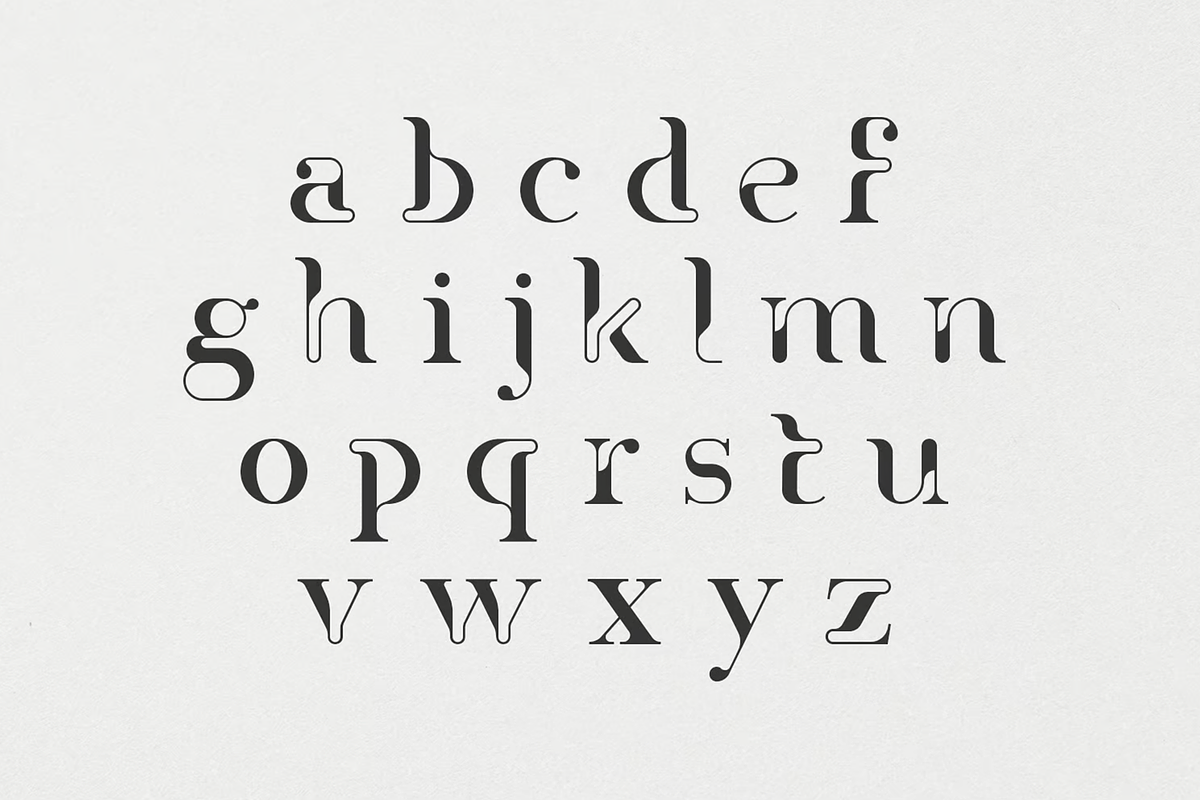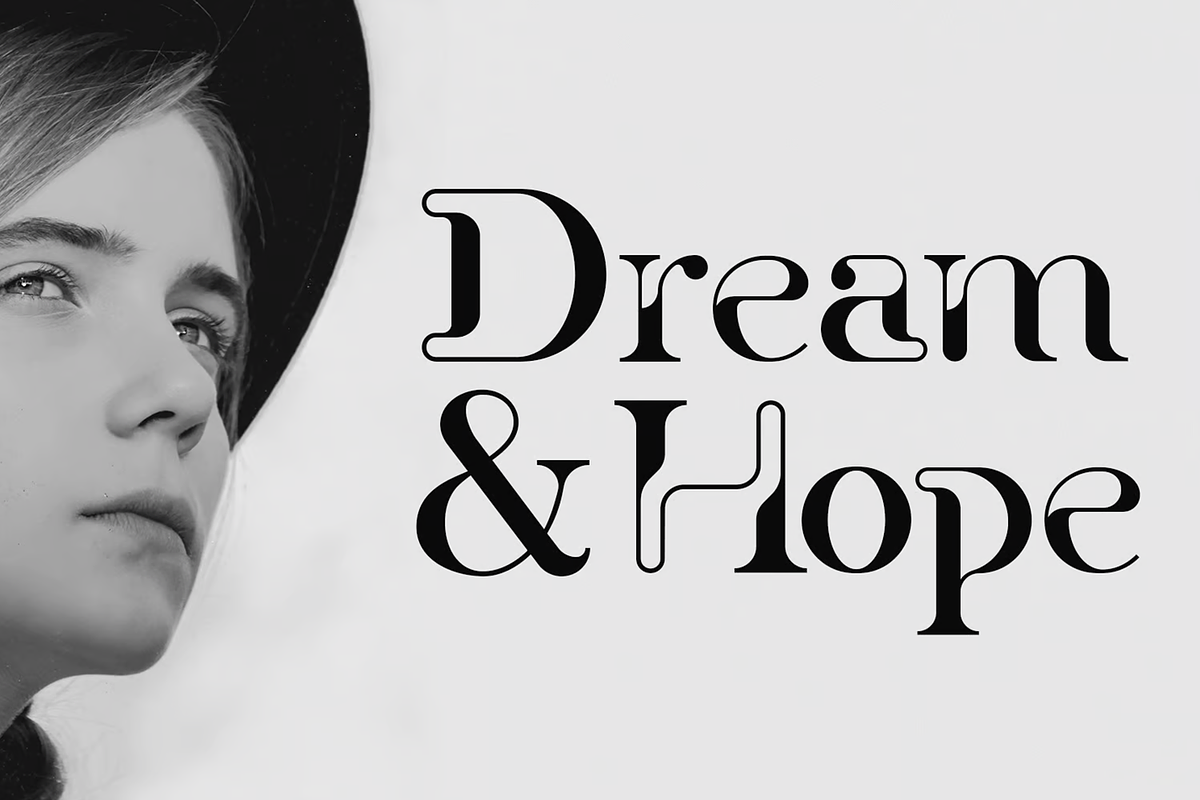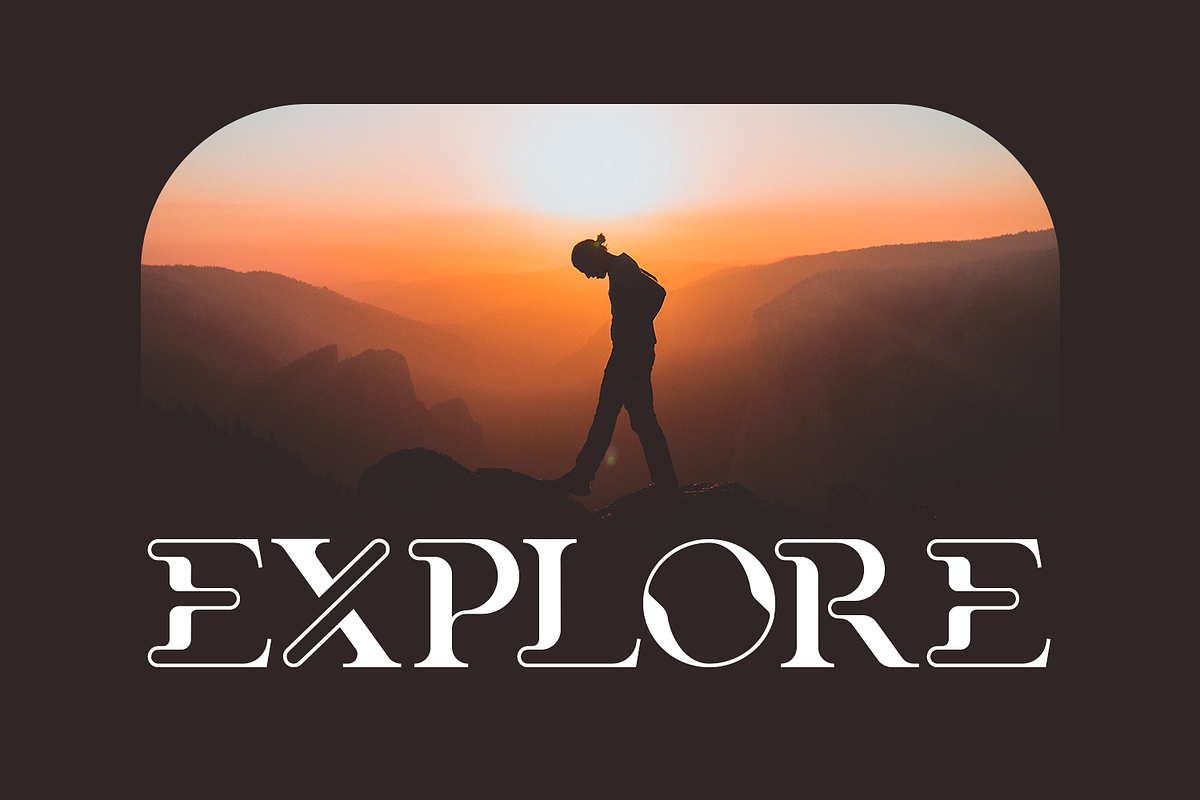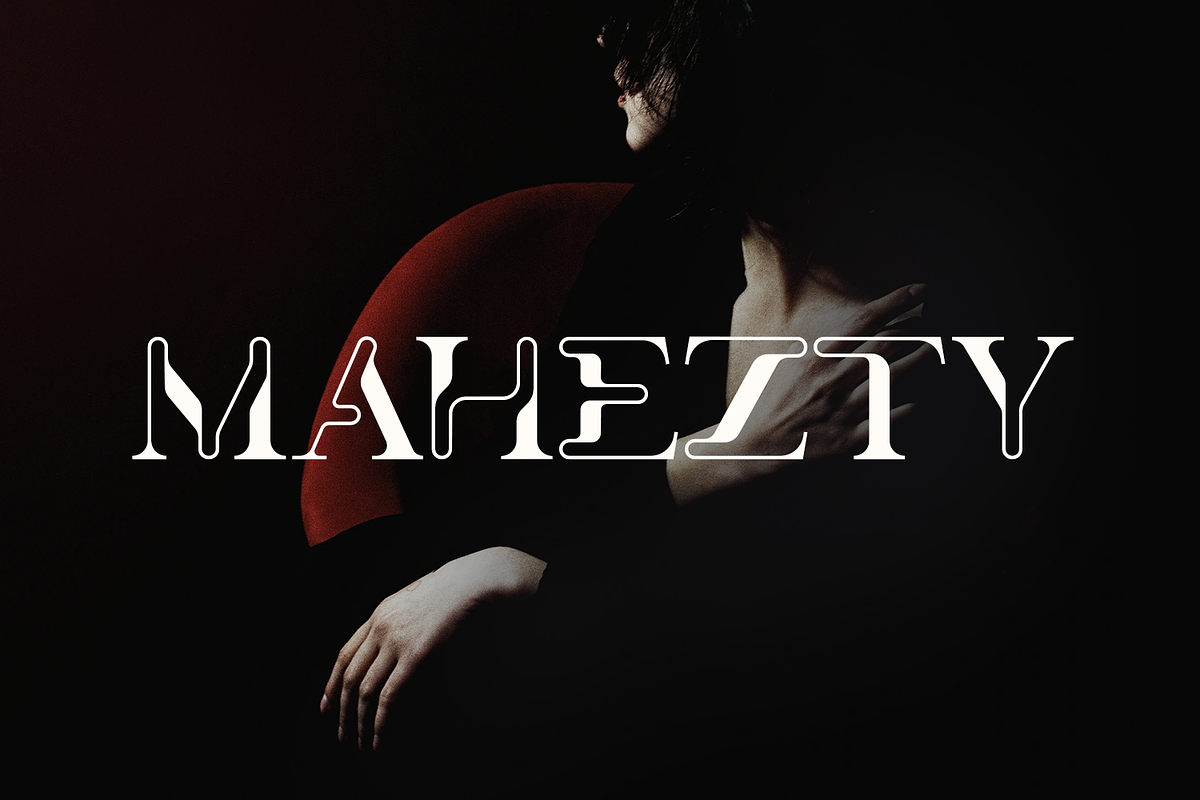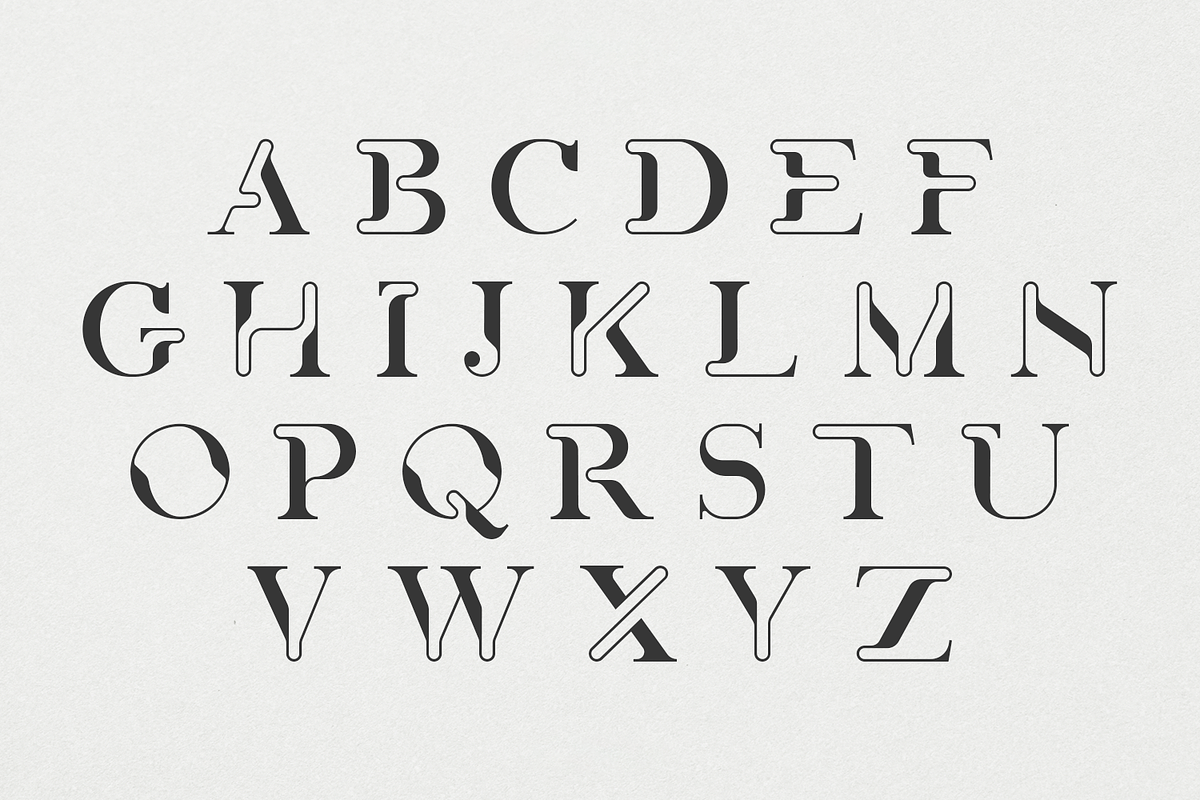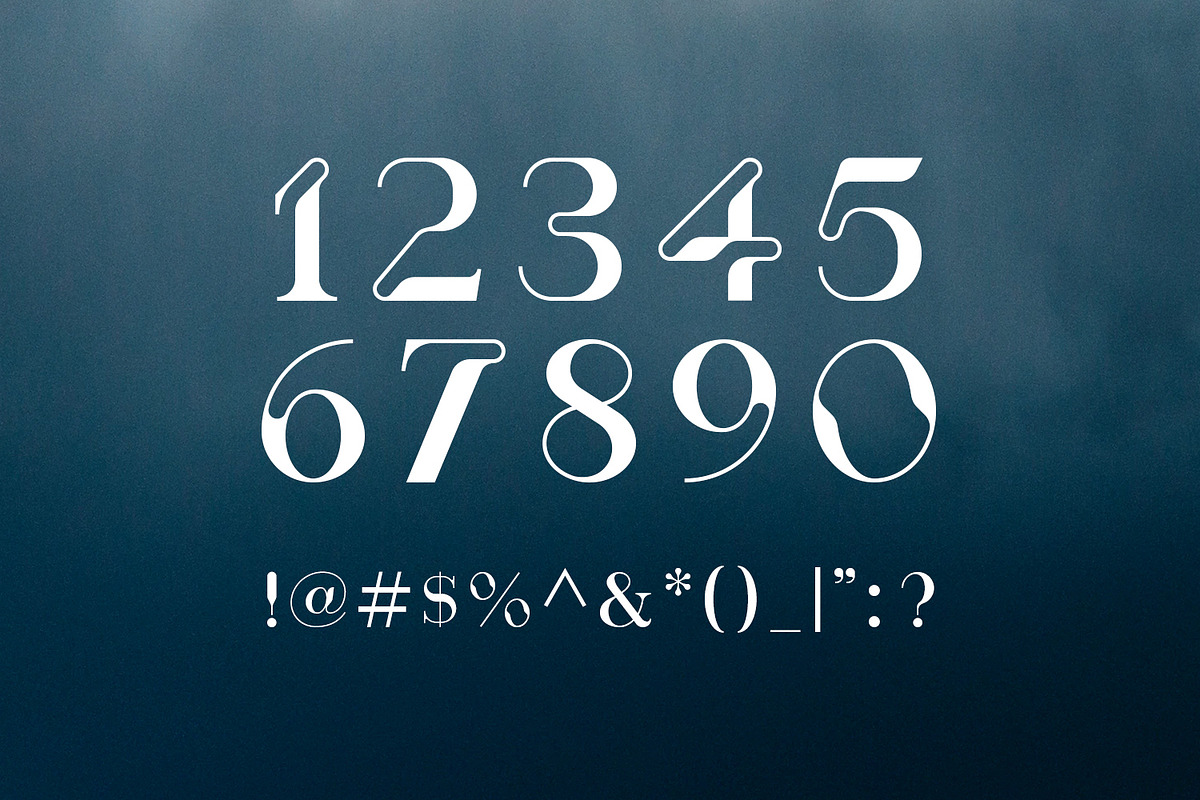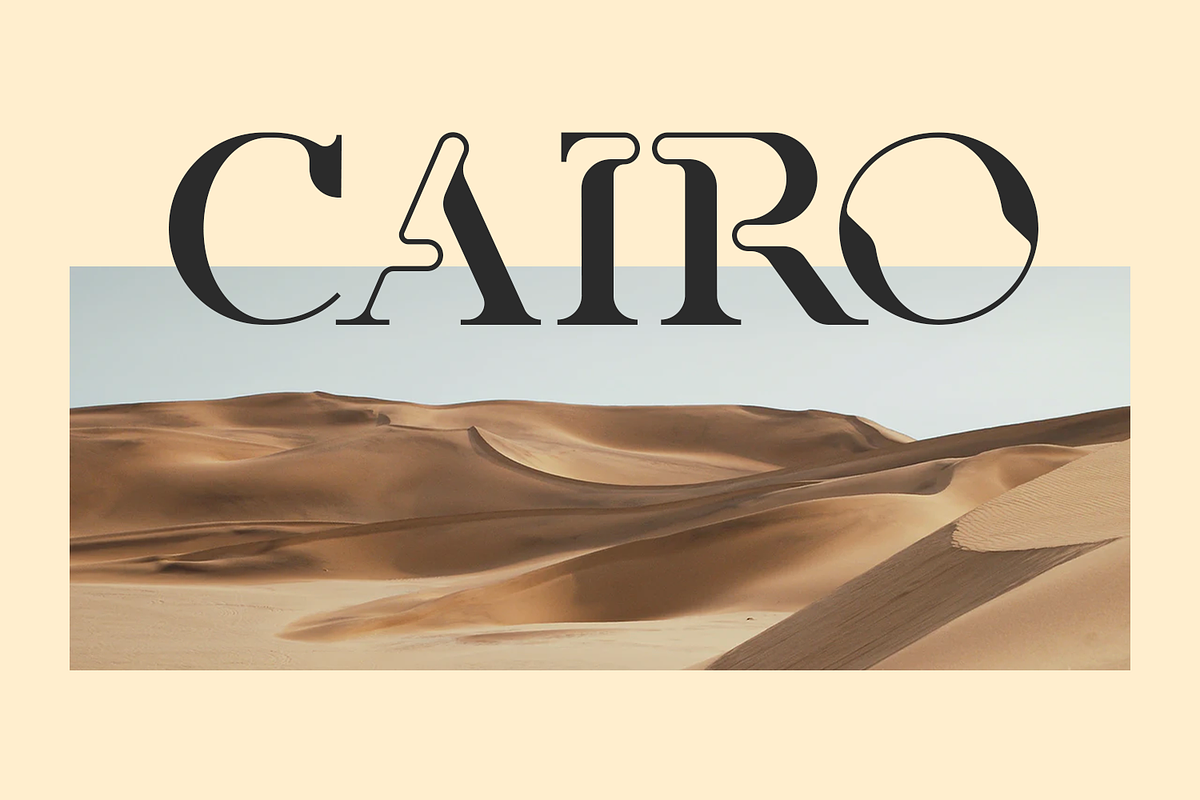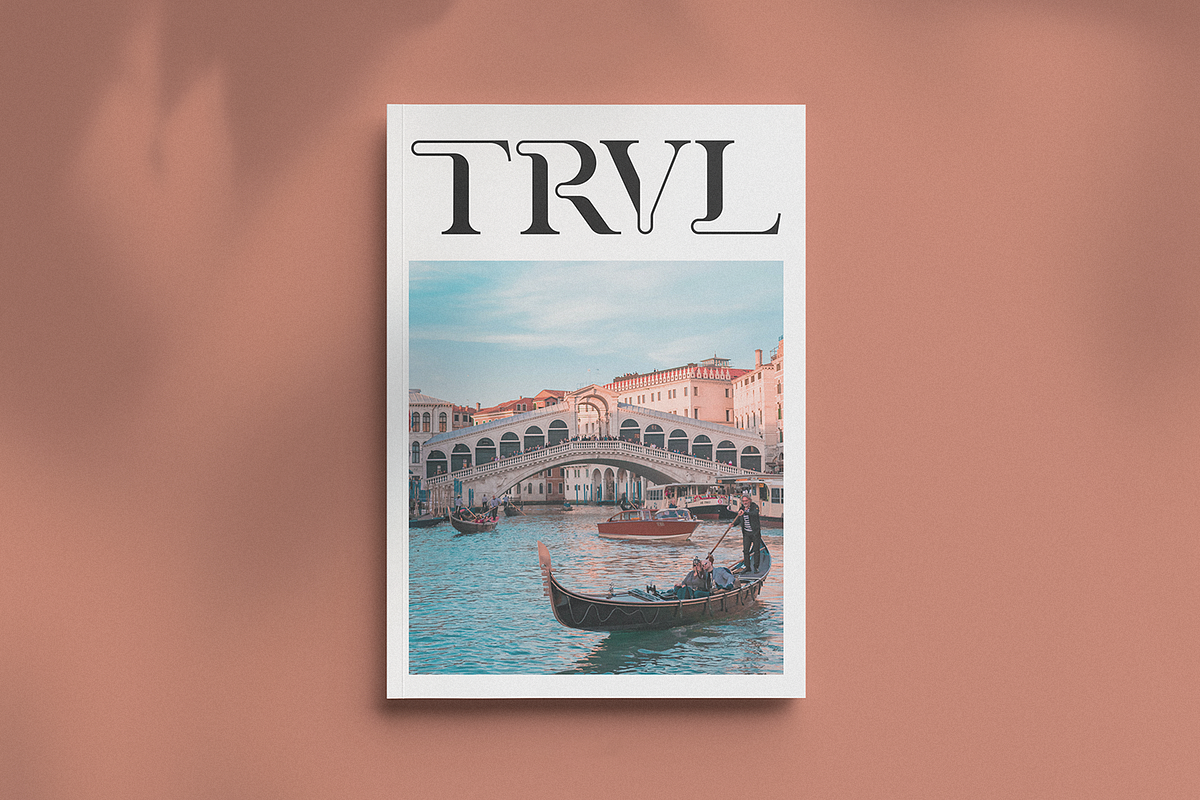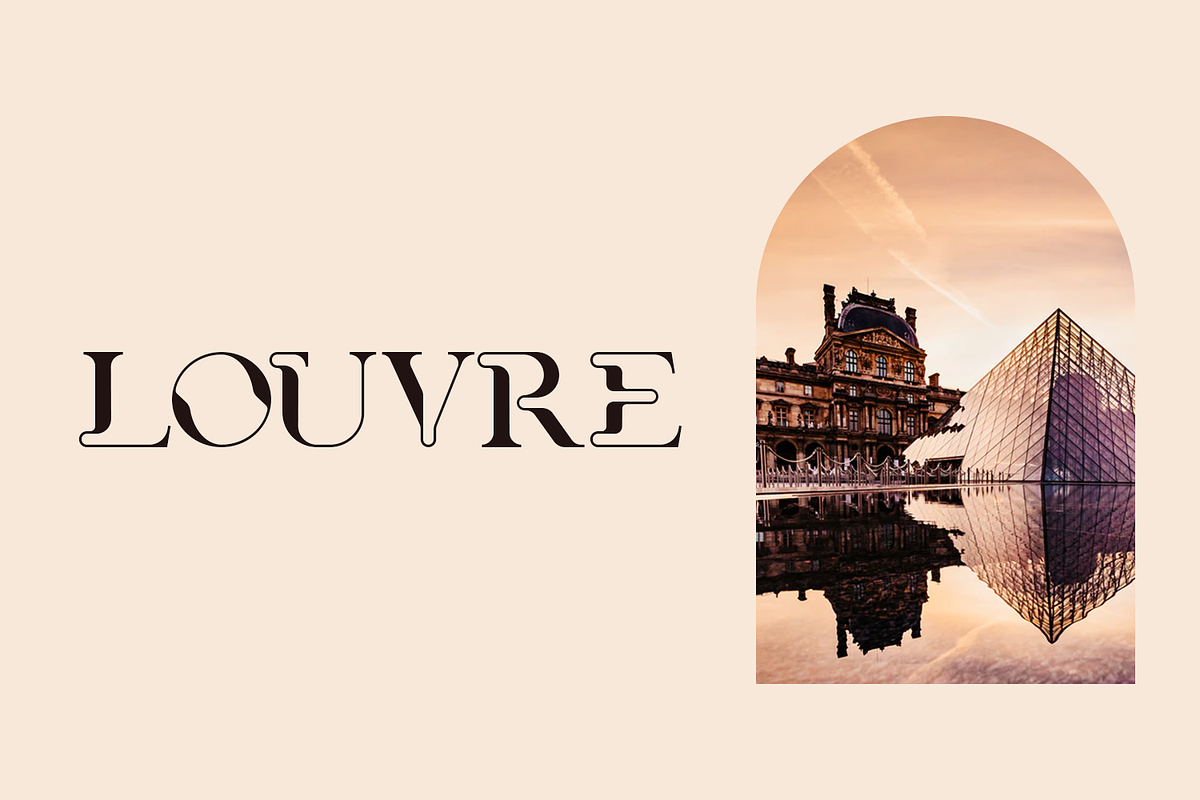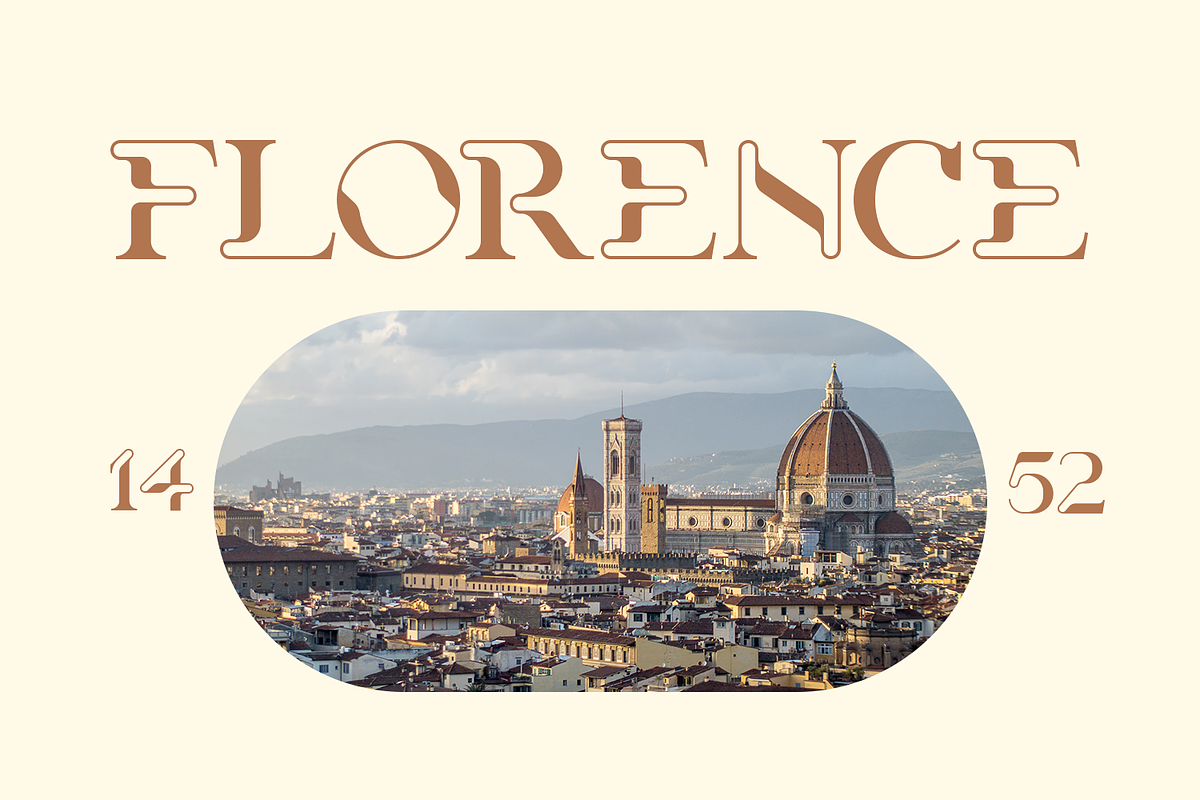
Mahezty
Mahezty is a modern serif display font designed for impact. Its bold weight and uniquely shaped letters lend it a stylish and contemporary feel. Suitable for a wide range of applications from branding and advertising to editorial design and cover art, Mahezty excels at conveying sophistication and elegance. While it's primarily intended for headlines and larger text sizes, its versatility allows it to be used creatively in other contexts as well.